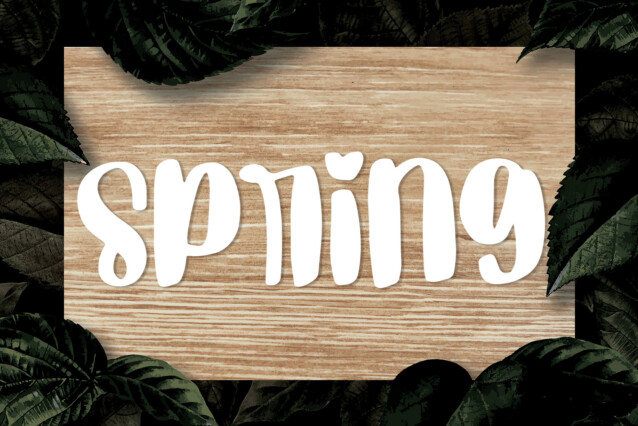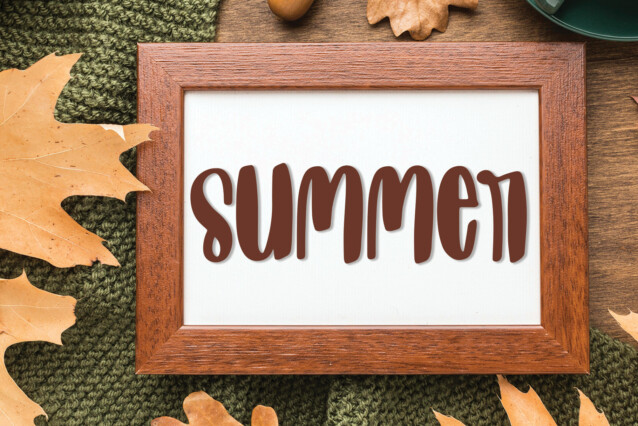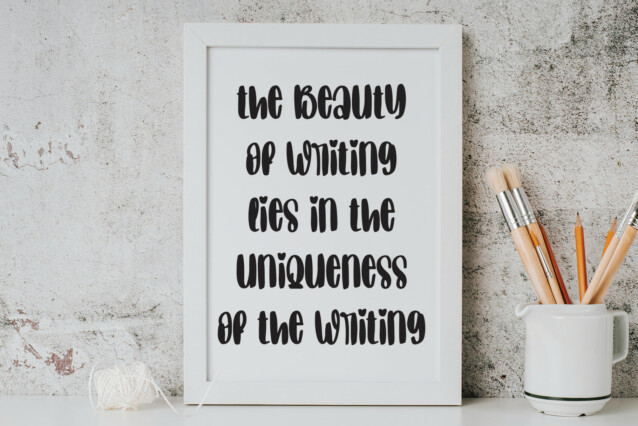
Movie Display Font
Movie Display Font is a cute and playful handwritten display font. No matter the topic, this font will be an incredible asset to your fonts’ library, as it has the potential to elevate any creation.